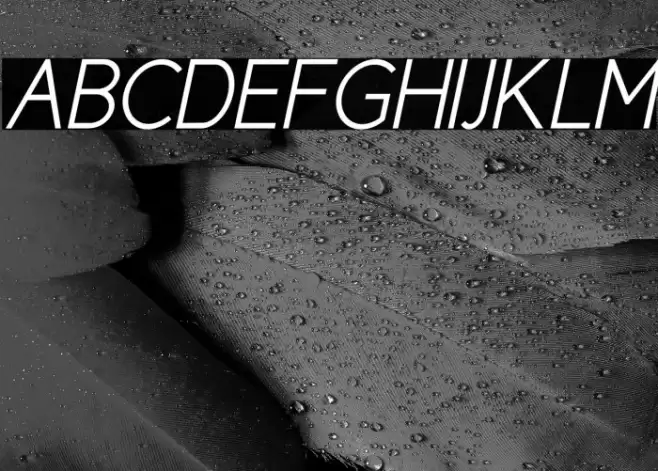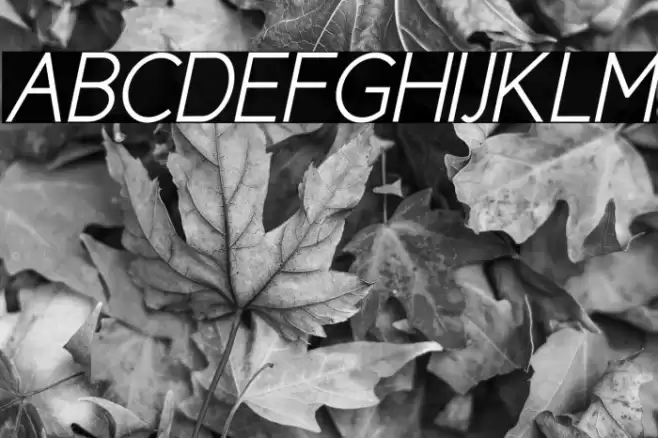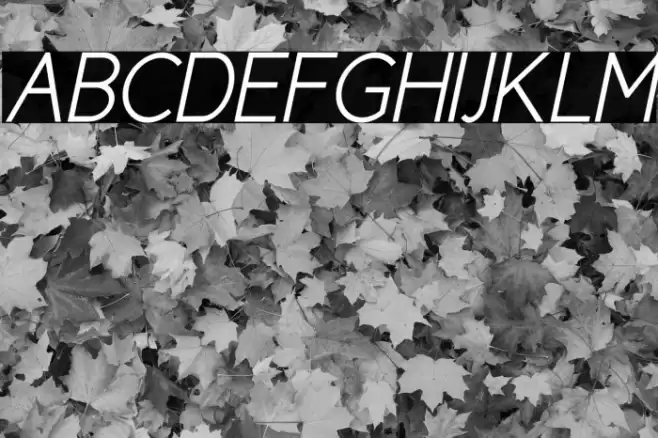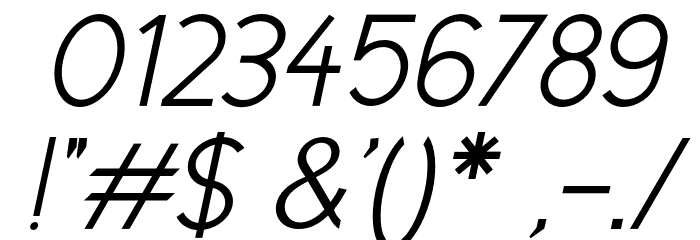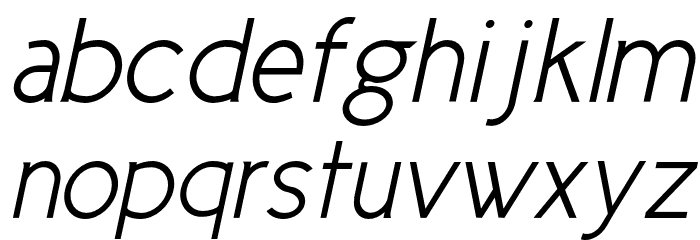
CicleSemiItalic Font
CicleSemiItalic Description
This font features a sleek, modern design with a slight italic slant, giving it a dynamic and forward-moving appearance. The characters are clean and sans-serif, providing a minimalist aesthetic that is both elegant and highly readable. The uppercase letters are tall and slightly condensed, while the lowercase letters maintain a consistent height, contributing to a harmonious flow. The numerals are clear and distinct, ensuring legibility in various contexts. Special characters are well-integrated, maintaining the font's cohesive style. Overall, this font exudes a contemporary feel, making it suitable for a wide range of applications.
A modern, italic sans-serif font with a sleek and dynamic design from Sans Serif fonts.
- Proposed Projects: Ideal for branding, advertising, digital media, and editorial design projects.